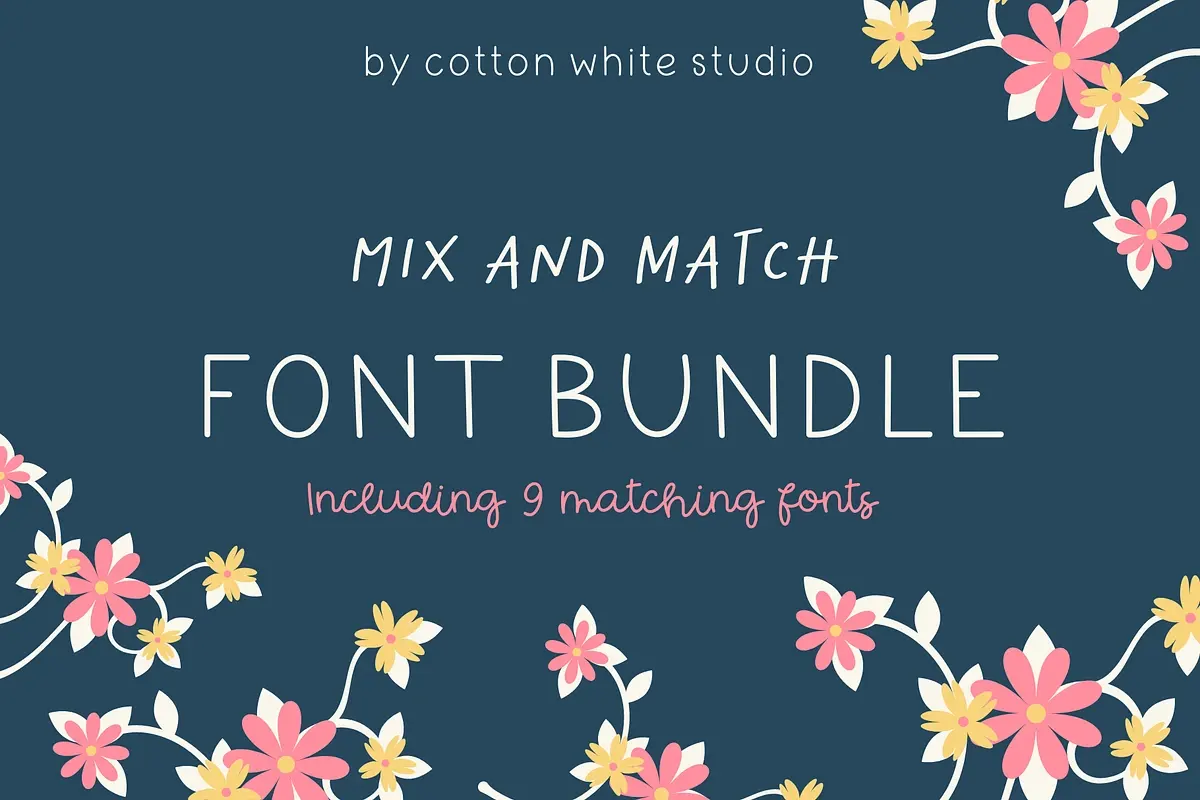
Mix and Match Font Bundle Free Download
Unlock a world of creative possibilities with the Mix and Match Font Bundle Free Download. This collection includes a variety of fonts in different styles, from playful scripts to modern serifs and bold sans serifs. Perfect for logos, branding, posters, social media, and more, this bundle offers incredible versatility for all your design needs.
The Mix and Match Font Bundle includes multiple font styles, allowing you to pair and experiment with different looks, from elegant and refined to bold and casual. The pack includes uppercase and lowercase letters, numerals, punctuation, and multilingual support, giving you everything you need to explore creative compositions and typography combinations.